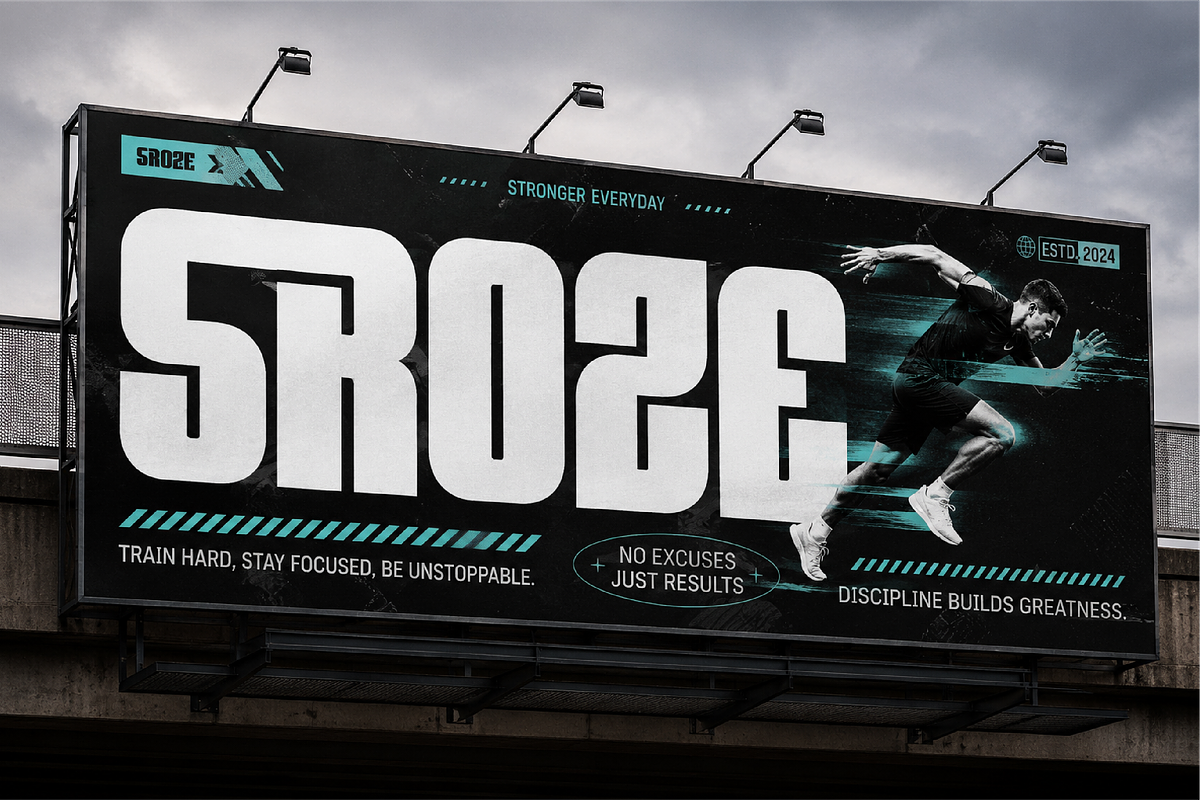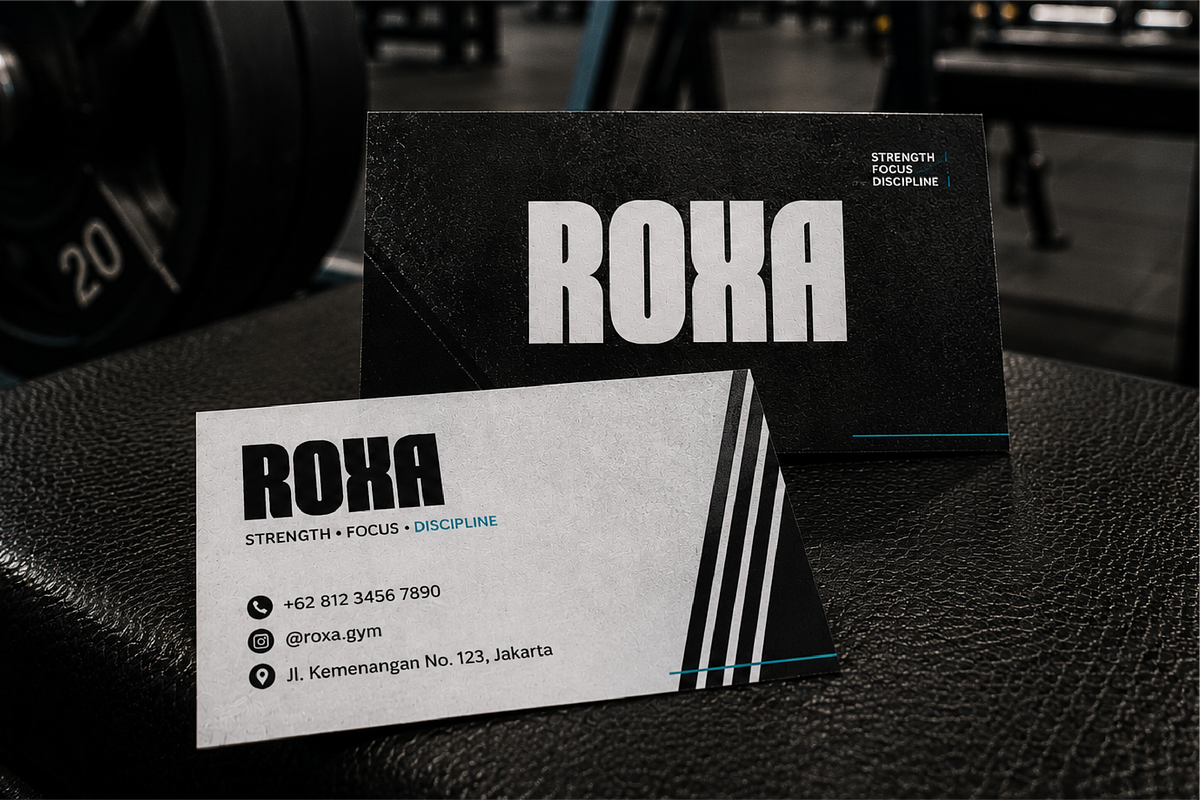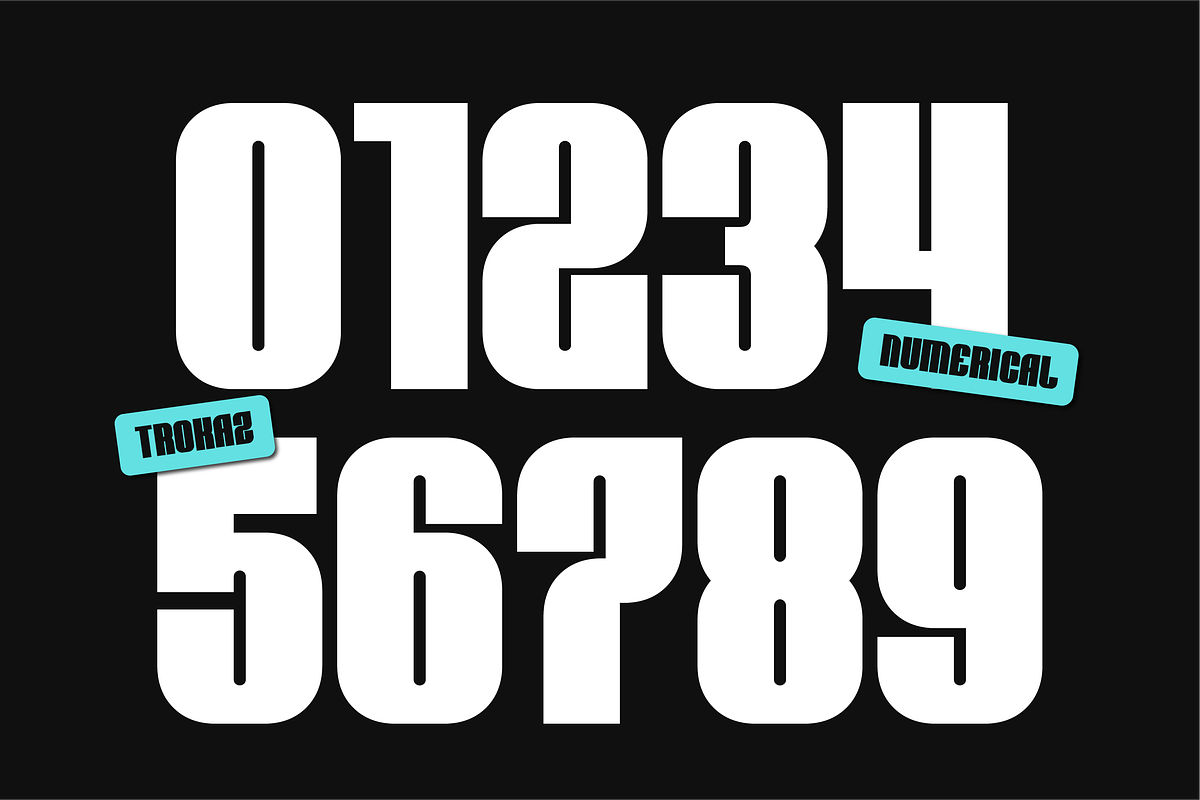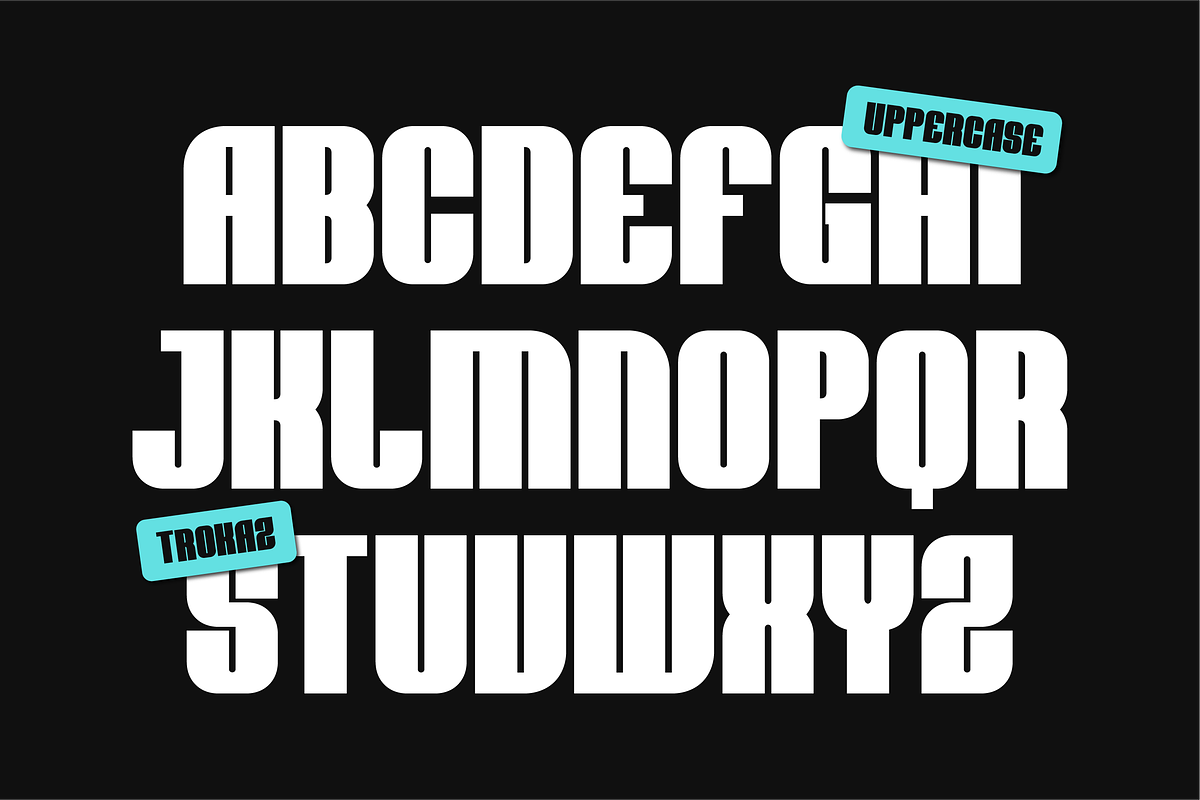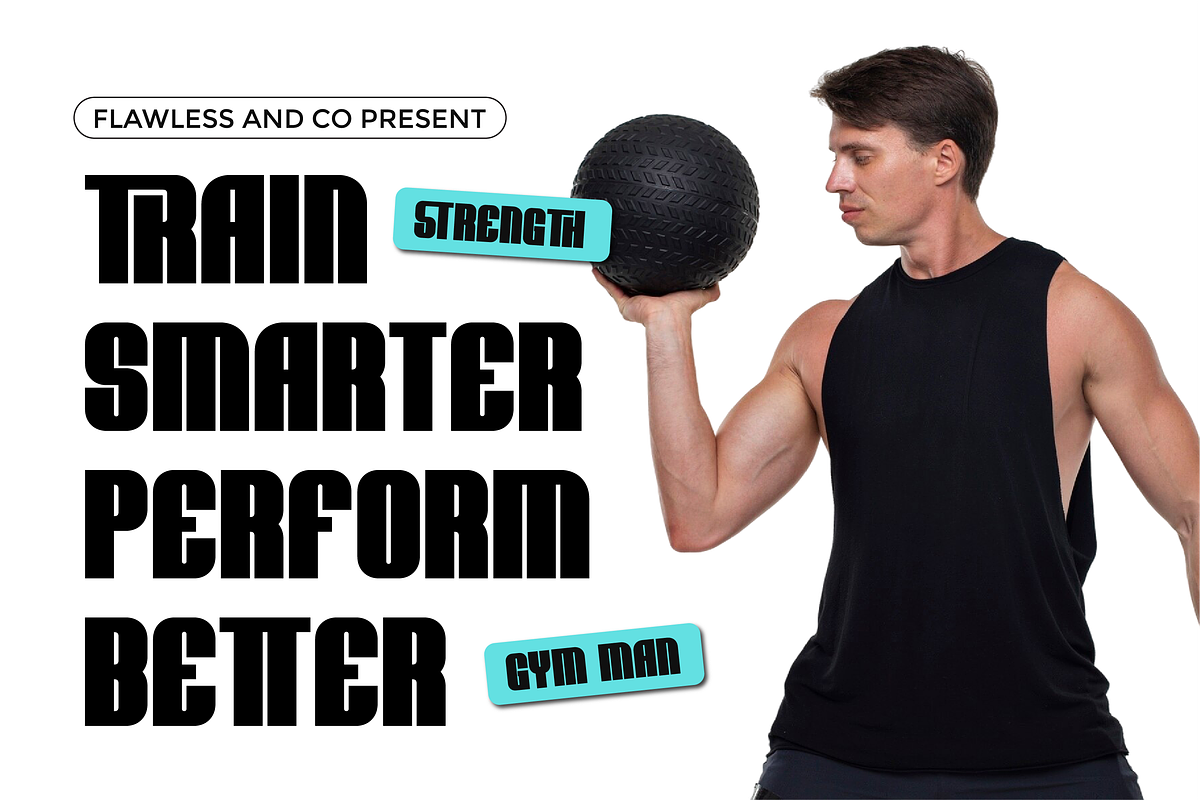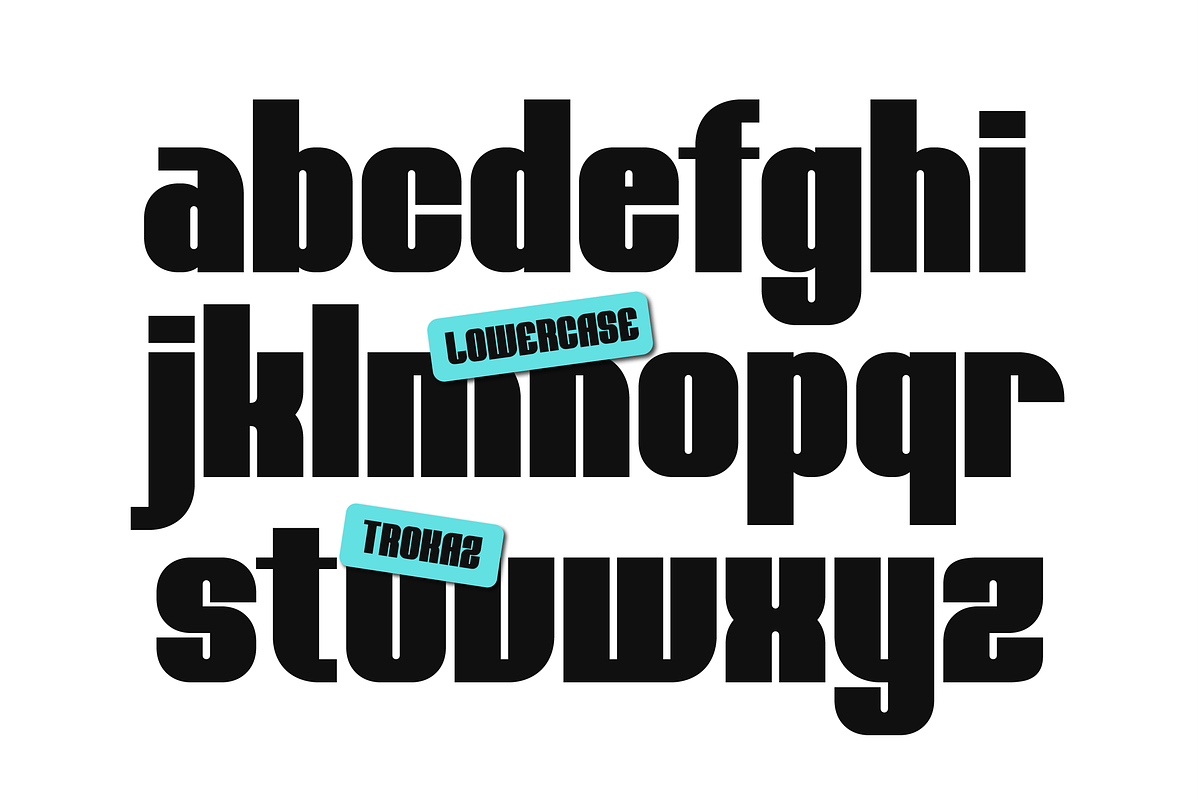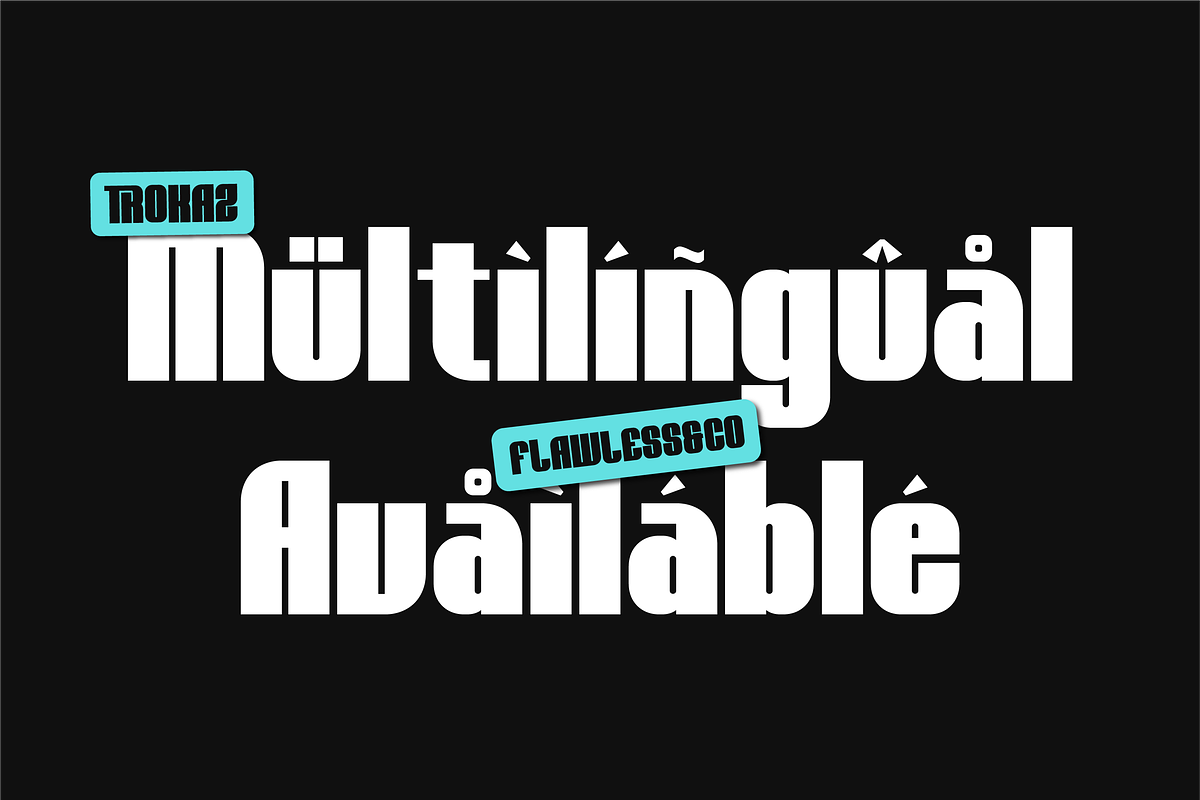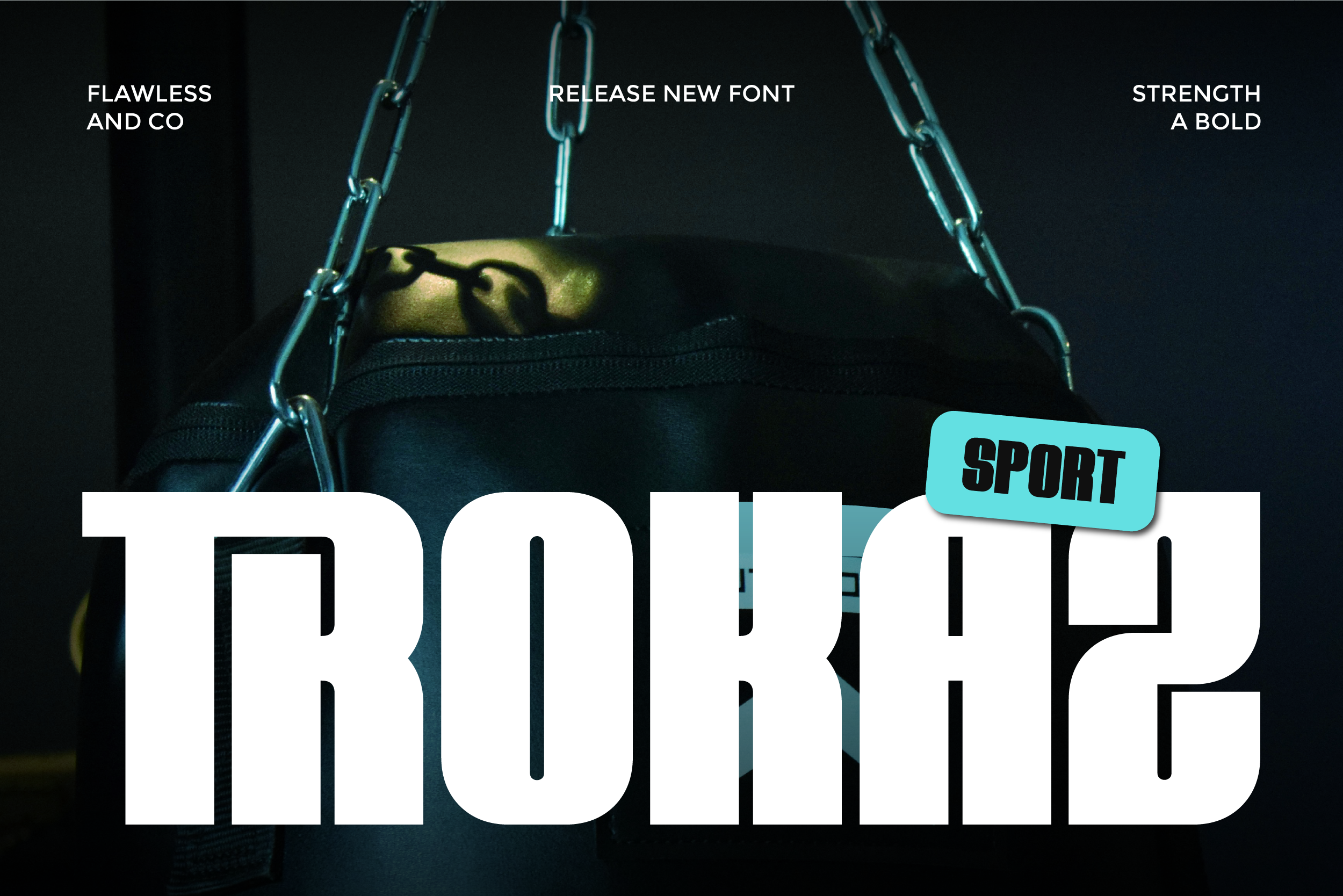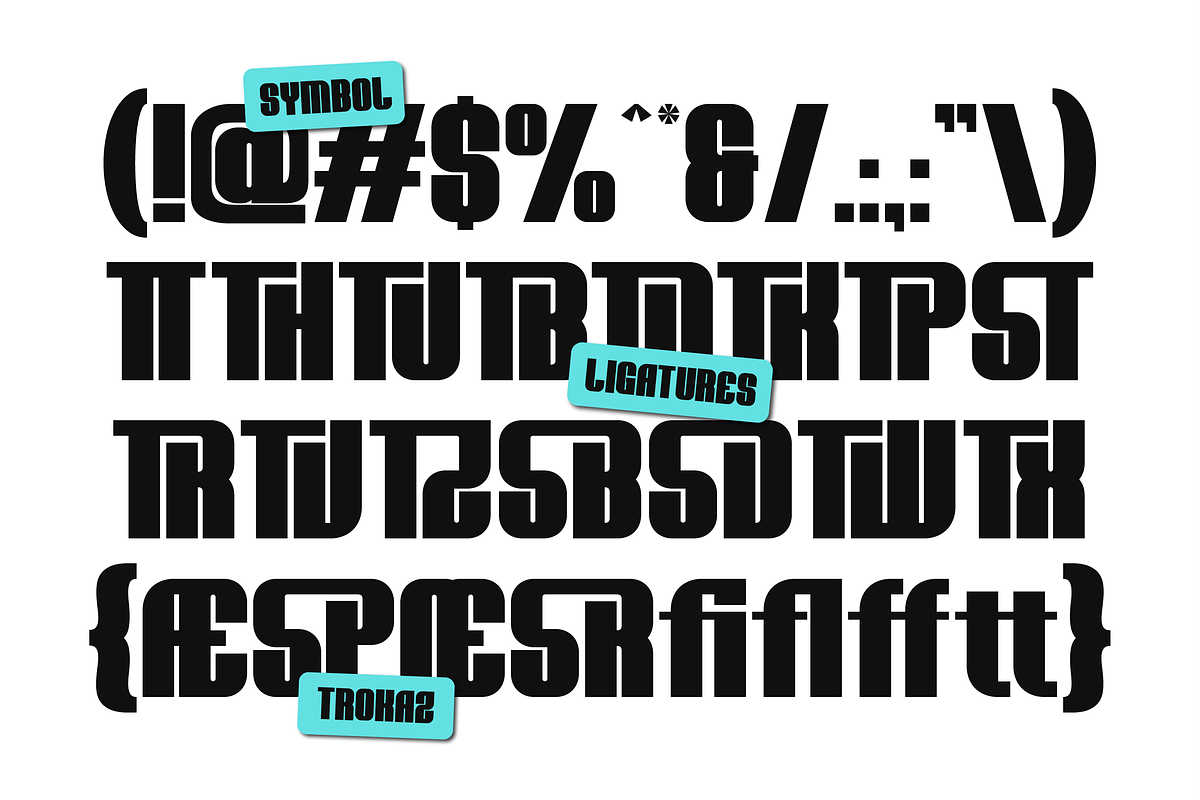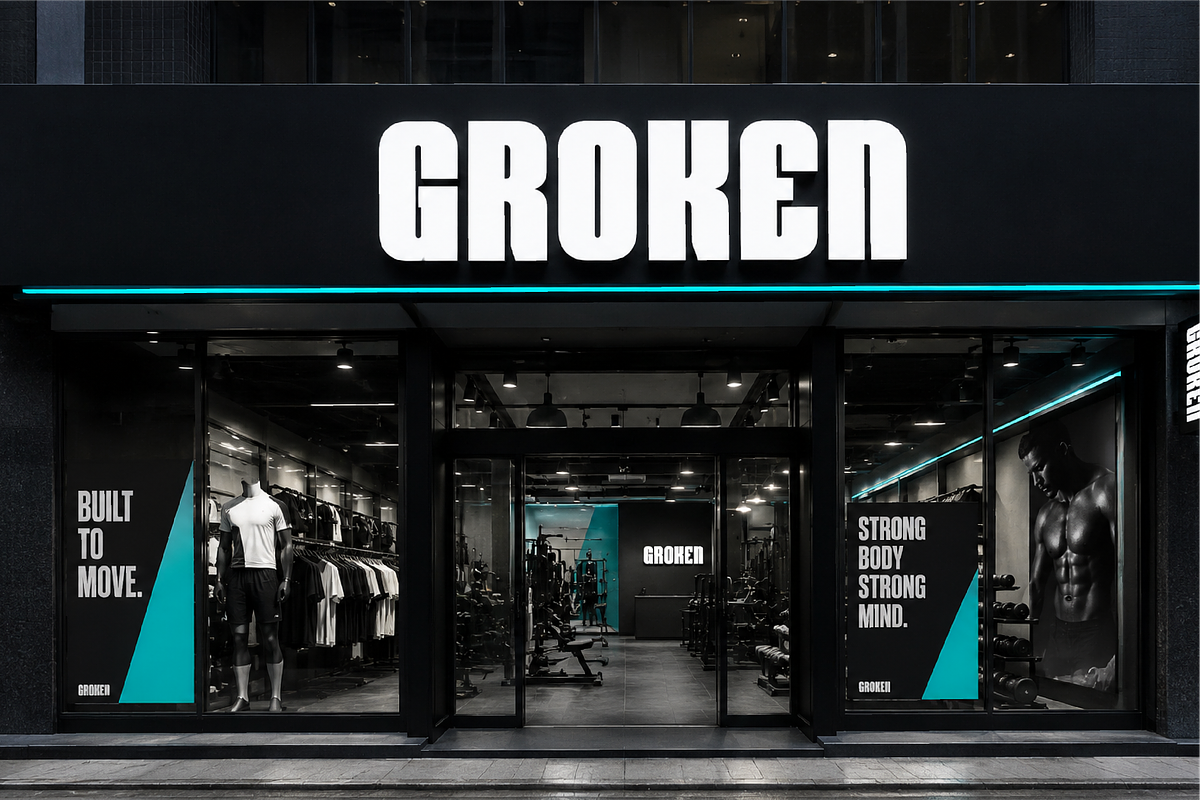
Trokaz - Bold Sport Display Font
Trokaz is a bold sport font engineered for designs that refuse to blend into the background. With its powerful strokes, condensed structure, and confident athletic character, Trokaz delivers typography that feels fast, fearless, and built for champions. Every letter is crafted to create maximum visual impact, turning ordinary headlines into bold statements of strength and determination.
Alternates & Ligatures
Trokaz is ideal for sports brands, esports organizations, fitness businesses, apparel companies, creative agencies, and designers looking for a bold display font with a modern athletic personality.
Sports branding and logo design
Esports and gaming graphics
Racing and automotive branding
Gym and fitness promotions
Athletic apparel and merchandise
Posters and event campaigns
YouTube thumbnails and social media
Modern bold display typography